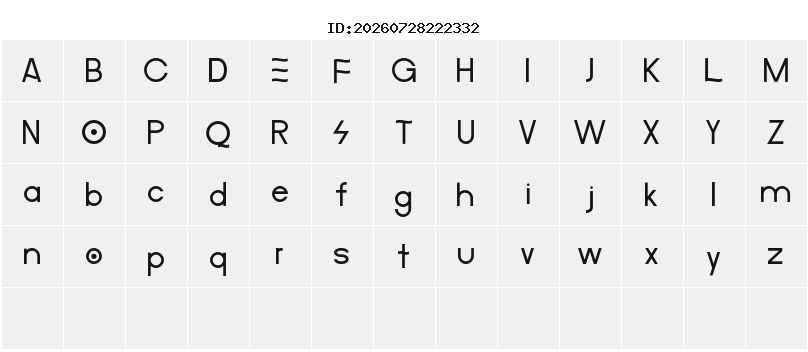
Merula Preview
• Font Name: Merula
• Font Style: Alternative
• Font ID: FrankHemmekam: Merula Alternative: 2013
• Full Font Name: Merula-Alternative
• Designer: Frank Hemmekam
• Manufacturer: Frank Hemmekam
About Merula.otf
Merula.otf is a modern, elegant sans-serif font designed for ultimate readability and visual harmony. Perfect for branding, headlines, web design, and print materials.